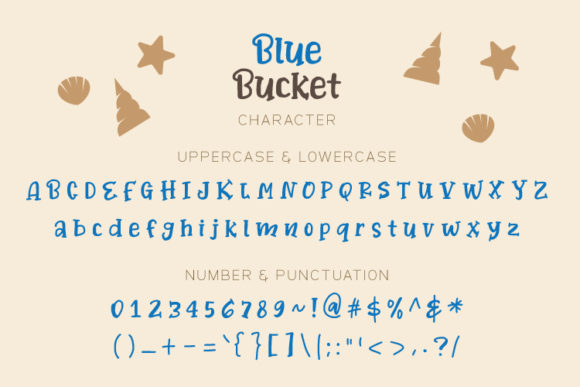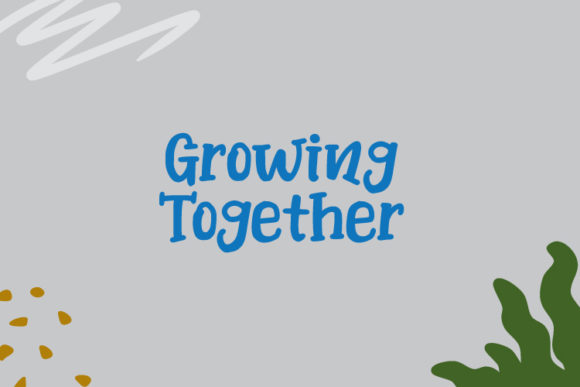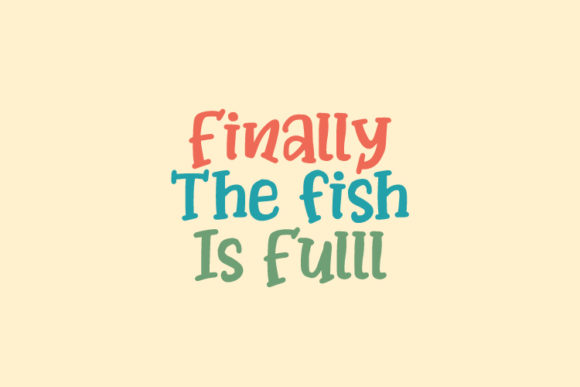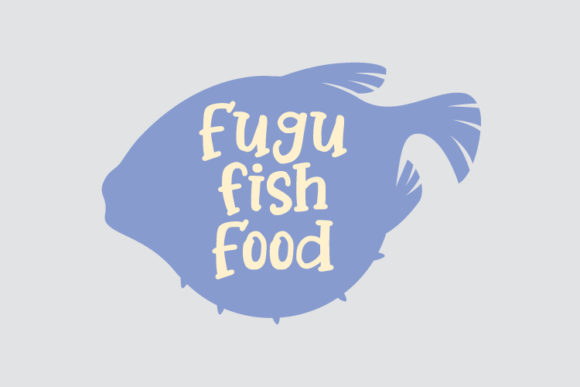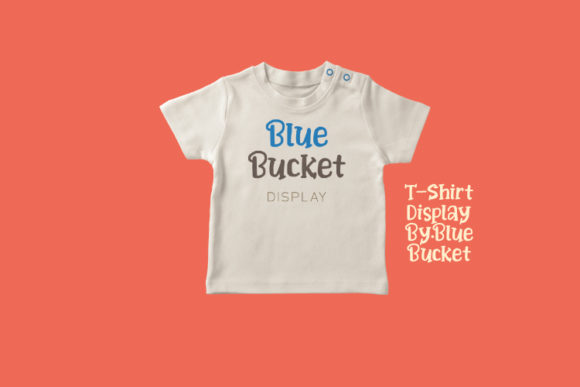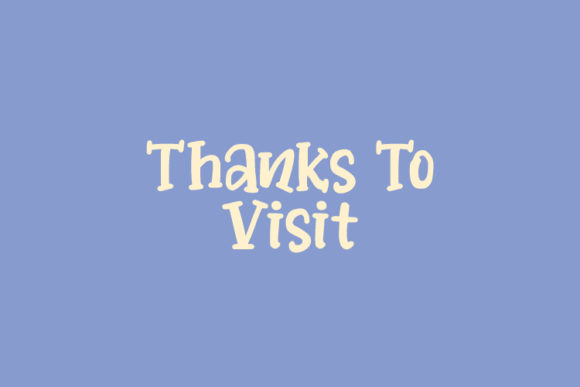
Introducing Blue Bucket Font: The Fresh and Relaxed Display Font You Need
Are you tired of using the same old fonts for your designs? Look no further! Blue Bucket Font is a fresh and relaxed display font that’s perfect for adding a touch of modernity to your projects. In this article, we’ll dive into the features and benefits of Blue Bucket Font, and explore how it can elevate your designs.
What is Blue Bucket Font?
Blue Bucket Font is a stylish and versatile display font that’s designed to make a statement. Its unique and relaxed style makes it perfect for a wide range of applications, from poster designs and book covers to merchandise, fashion campaigns, newsletters, advertising, magazines, greeting cards, album covers, and more!
Key Features of Blue Bucket Font
- Fresh and Relaxed Style: Blue Bucket Font boasts a fresh and relaxed style that’s perfect for designers looking for a modern and trendy font.
- Highly Versatile: This font is suitable for a wide range of applications, from print materials to digital designs.
- Easy to Read: Despite its unique style, Blue Bucket Font is easy to read, making it perfect for body text and headlines.
- Customizable: With its wide range of characters and symbols, Blue Bucket Font can be easily customized to fit your design needs.
Blue Bucket Font is a dream come true for designers and crafters looking for a font that’s both stylish and functional. Whether you’re working on a personal project or a client’s brief, this font is sure to impress. Here are some ways you can use Blue Bucket Font:
- Poster Designs: Create eye-catching posters for events, promotions, or awareness campaigns.
- Book Covers: Add a touch of modernity to your book covers and make them stand out on bookshelves.
- Merchandise: Design stylish merchandise, such as t-shirts, mugs, and tote bags, that will appeal to a wide audience.
- Fashion Campaigns: Use Blue Bucket Font to create stunning fashion campaigns that showcase your brand’s style and personality.
Tips for Using Blue Bucket Font
To get the most out of Blue Bucket Font, here are some tips to keep in mind:
- Experiment with Colors: Blue Bucket Font looks great in a range of colors, so don’t be afraid to experiment and find the perfect hue for your design.
- Play with Sizes: This font looks great in large and small sizes, so try it out in different contexts to see what works best.
- Combine with Other Fonts: Blue Bucket Font pairs well with other fonts, so try combining it with a sans-serif or script font for added visual interest.
| Font Name | Blue Bucket Font |
| Author | pustudio |